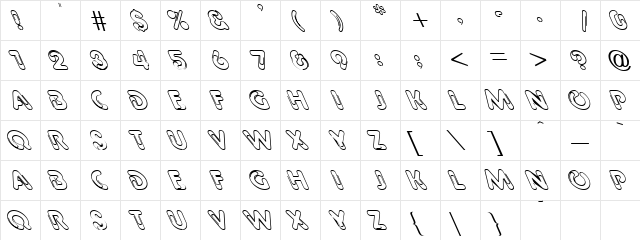
Snow-blind 6 Regular
Design Context for Snow-blind 6 Typeface
Snow-blind 6 is a composed and adaptable typeface that performs quietly and consistently across a wide range of design contexts.